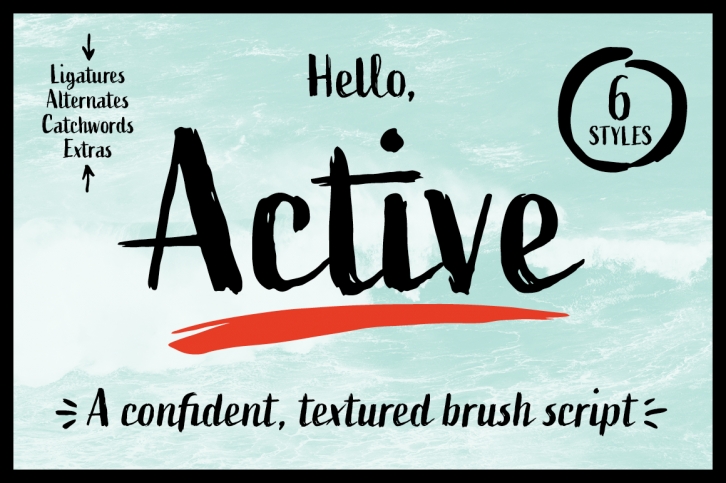
Active Family is a great font that was designed by Adam Ladd. Imagine the amount of combinations you can create using this font! The archive is 4.79 MB and it was released on March 14, 2018. Active Family looks beautiful on wedding invitations, greeting cards, logos, posters, labels, t-shirt designs, logos, business cards and is perfect for use in ink or watercolor works, fashion, magazines, packaging and food menus, children's books and more!